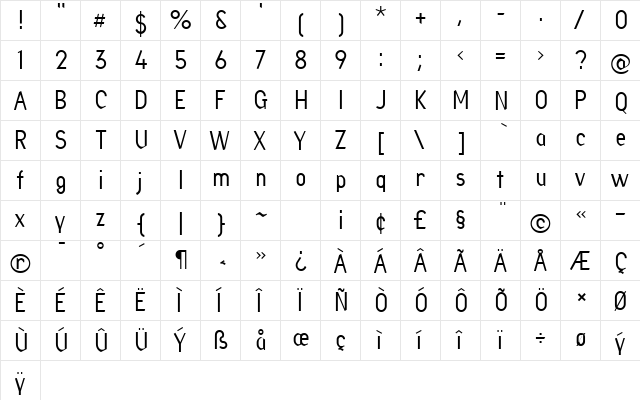
FactoryLightLiningNumbers Regular
Design Context for FactoryLightLiningNumbers Typeface
FactoryLightLiningNumbers offers clean, dependable letterforms without strong stylistic allegiance, making it a practical choice for designers who need flexibility. The delicate stroke weight brings airiness and refinement to layouts.